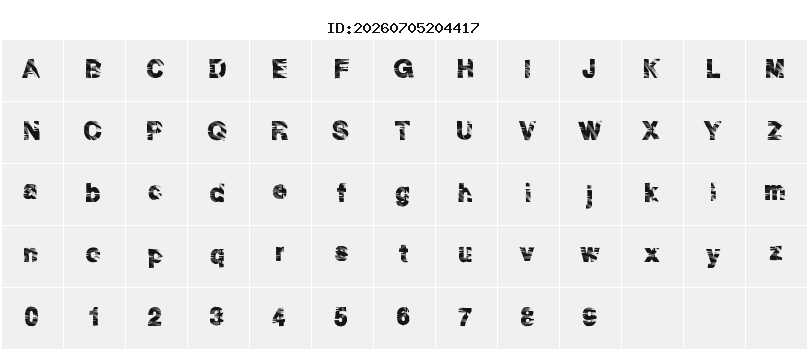
DiscoParty Preview
• Font Name: DiscoParty
• Font ID: DiscoParty:Version 1.00
• Full Font Name: DiscoParty
• Version: Version 1.00 April 13, 2014, initial release
• PostScript Name: DiscoParty
• Character Count: 72
• Designer: Xerographer Fonts Max Infeld
• Manufacturer: Xerographer Fonts
• Description: Made at Xerographer Studios in Ojai,CA
About DiscoParty.ttf
DiscoParty.ttf is a modern, elegant sans-serif font designed for ultimate readability and visual harmony. Perfect for branding, headlines, web design, and print materials.